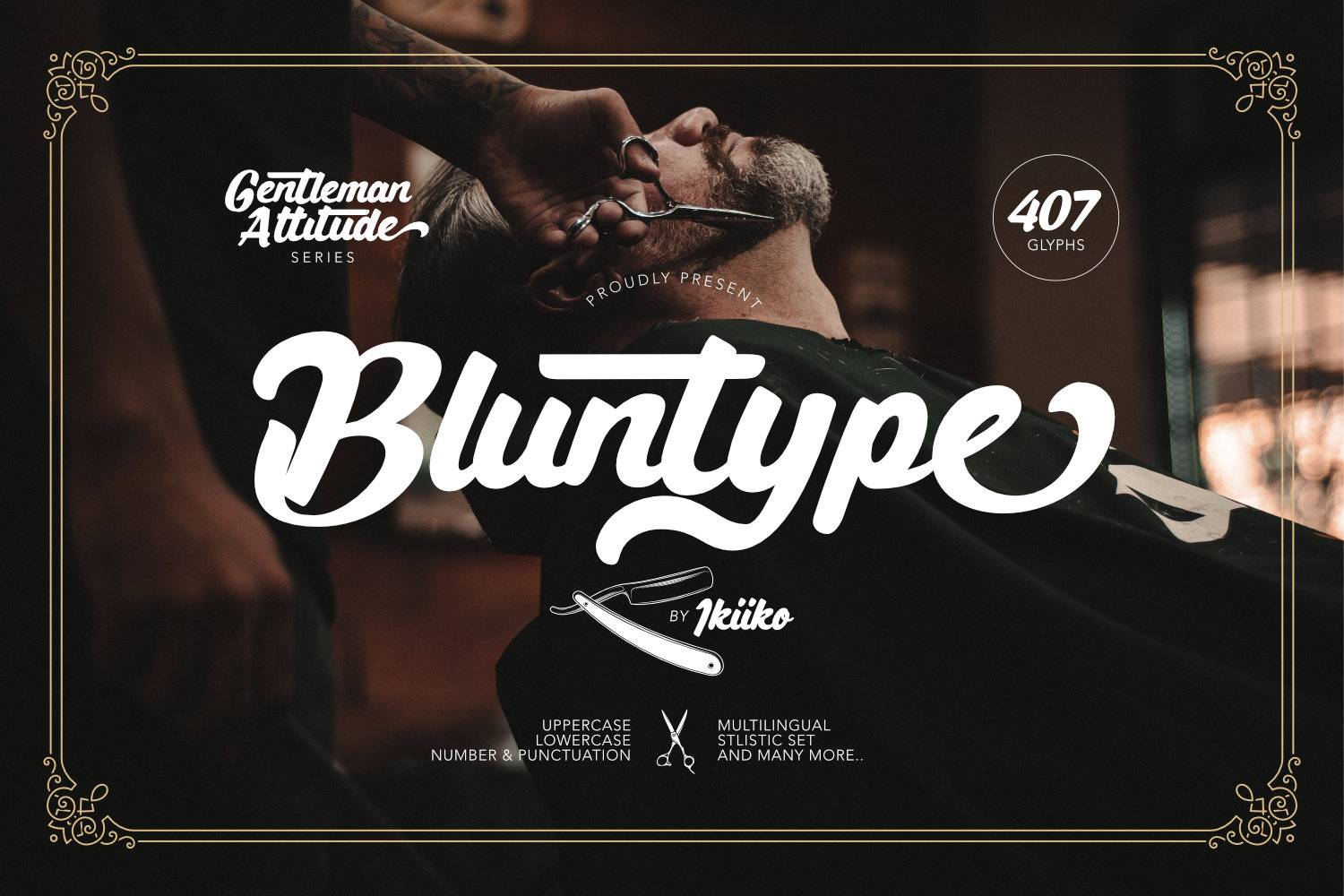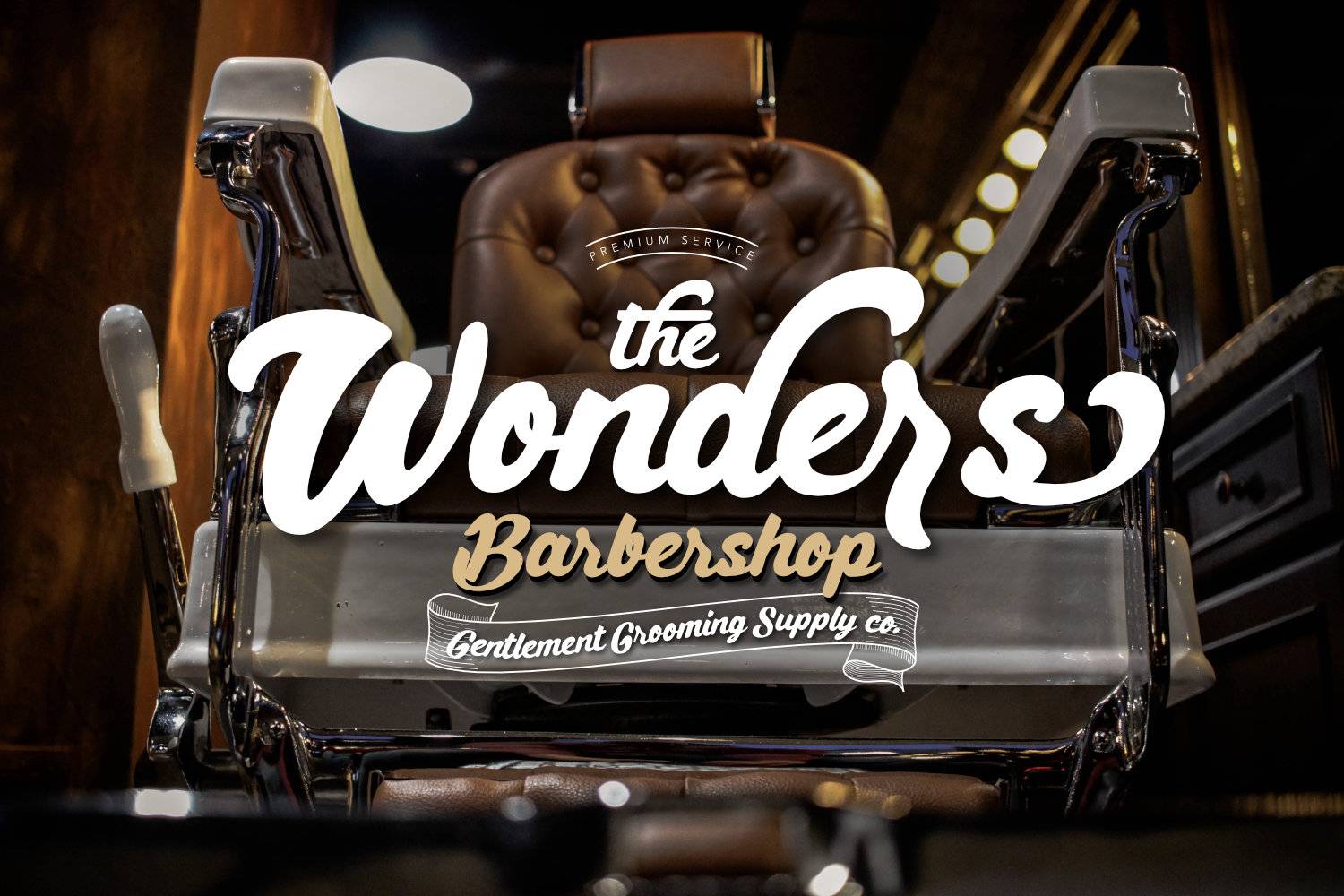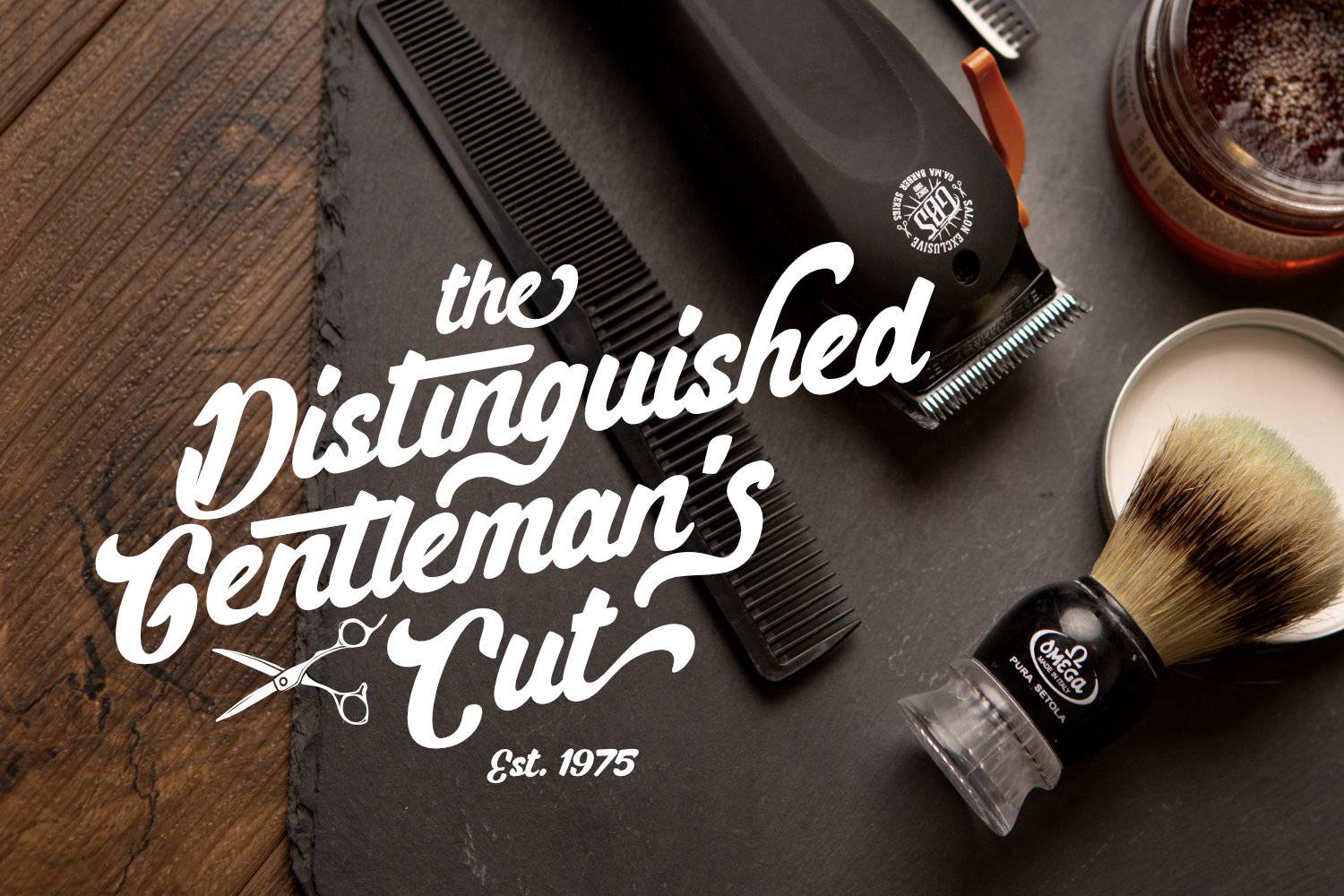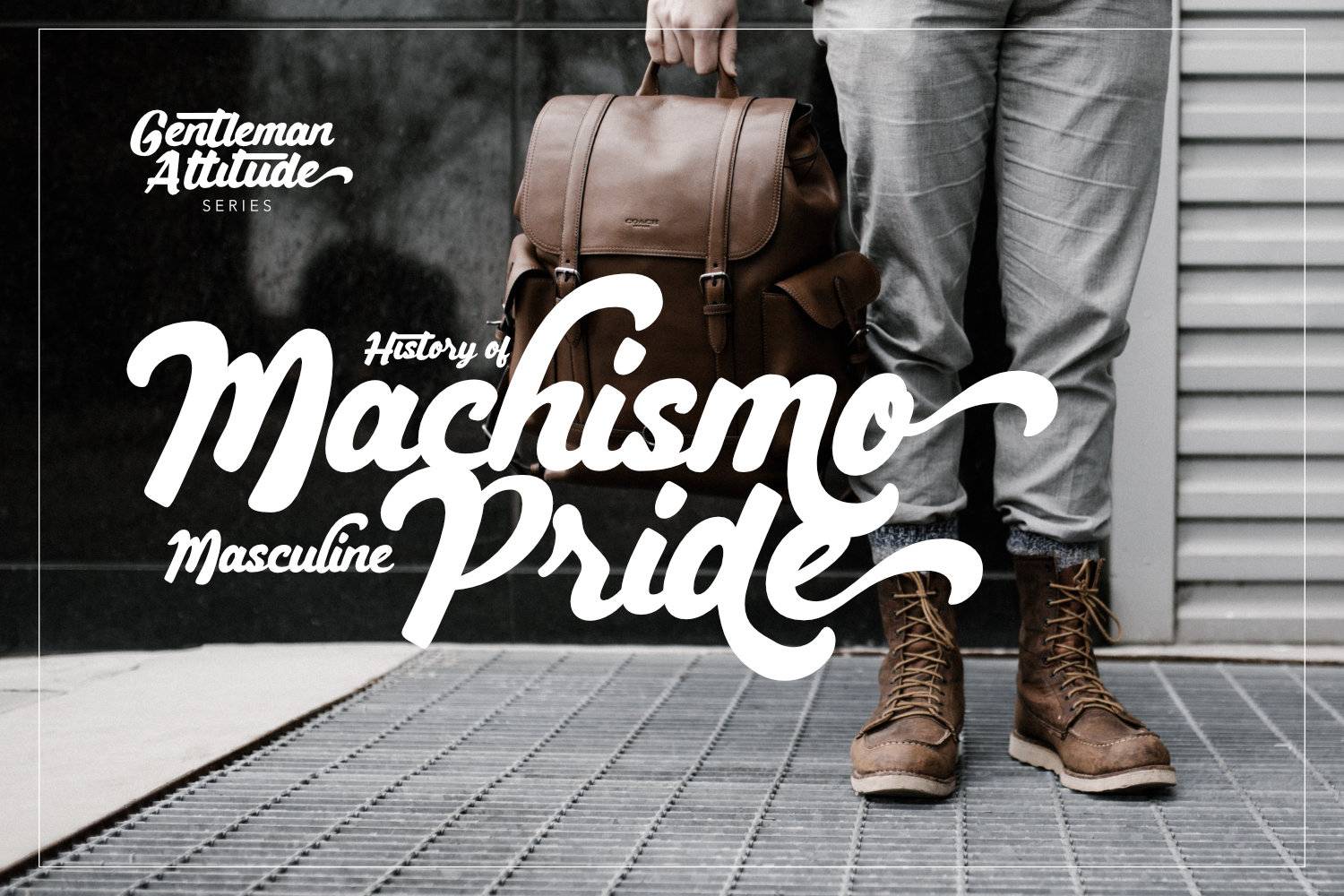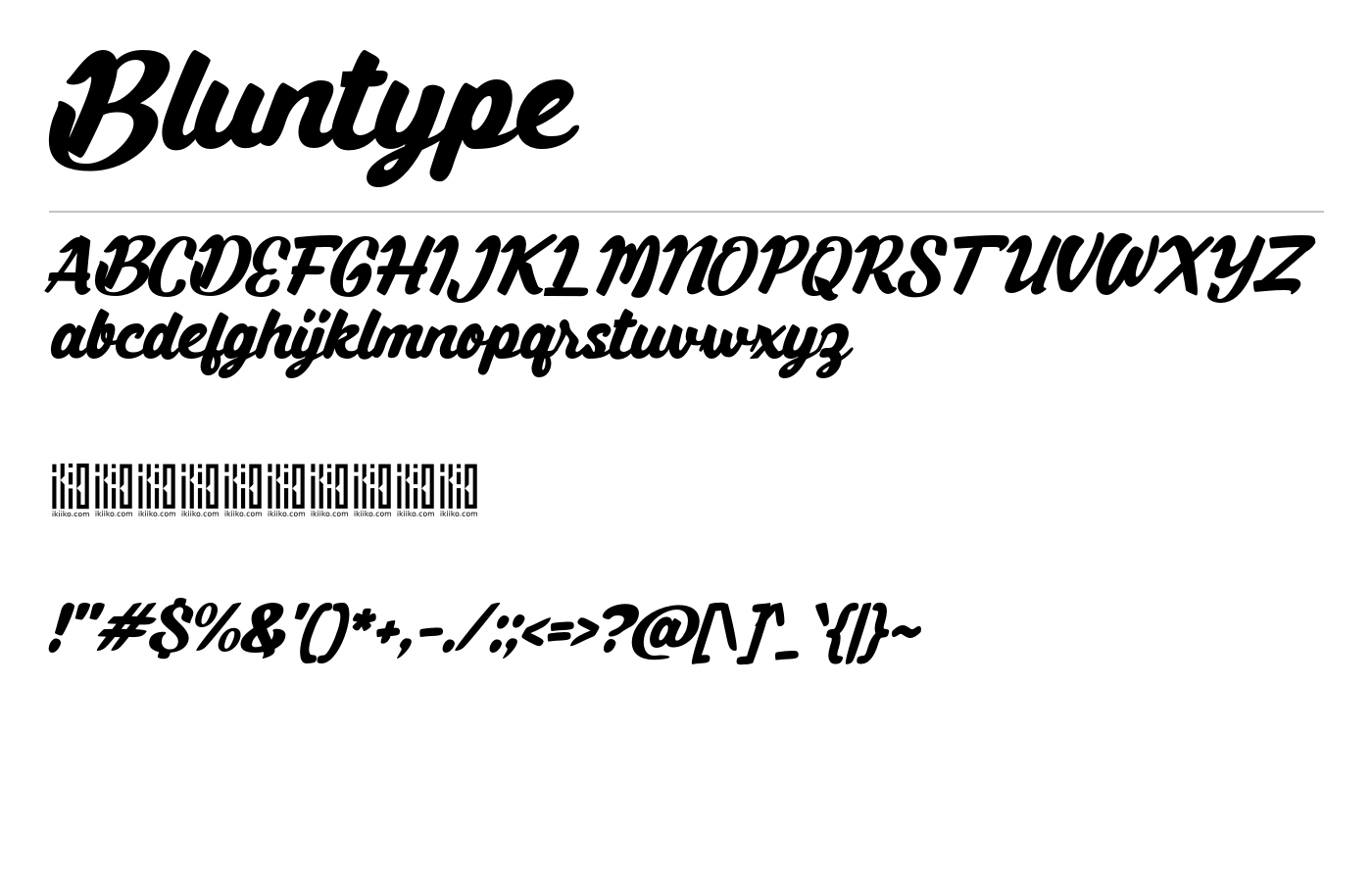
Bluntype is a bold and lively script font featuring smooth, rounded strokes and a casual handwritten style that adds warmth and energy to any design. Its thick weight and flowing letterforms make it perfect for eye-catching headlines, logos, or branding that seeks a friendly yet confident personality. This font shines best in creative and informal contexts where a personal, approachable touch is desired.
Bluntype Font
About Bluntype Font
| Font family | Bluntype Font |
| Designer | Wahyu Eka Prasetya, Andhika Pradana |